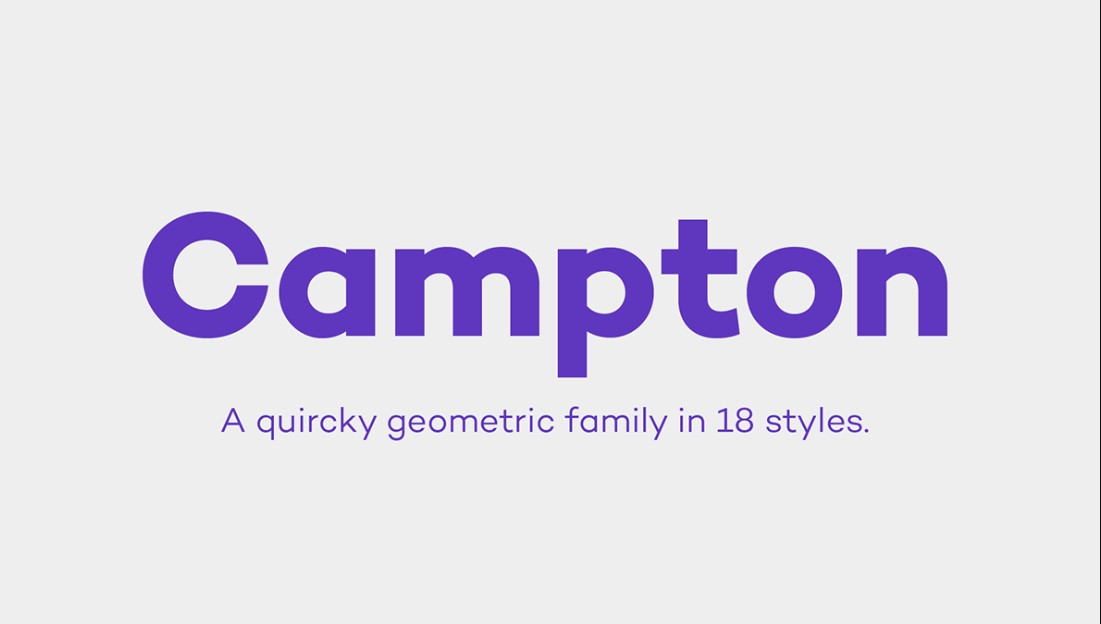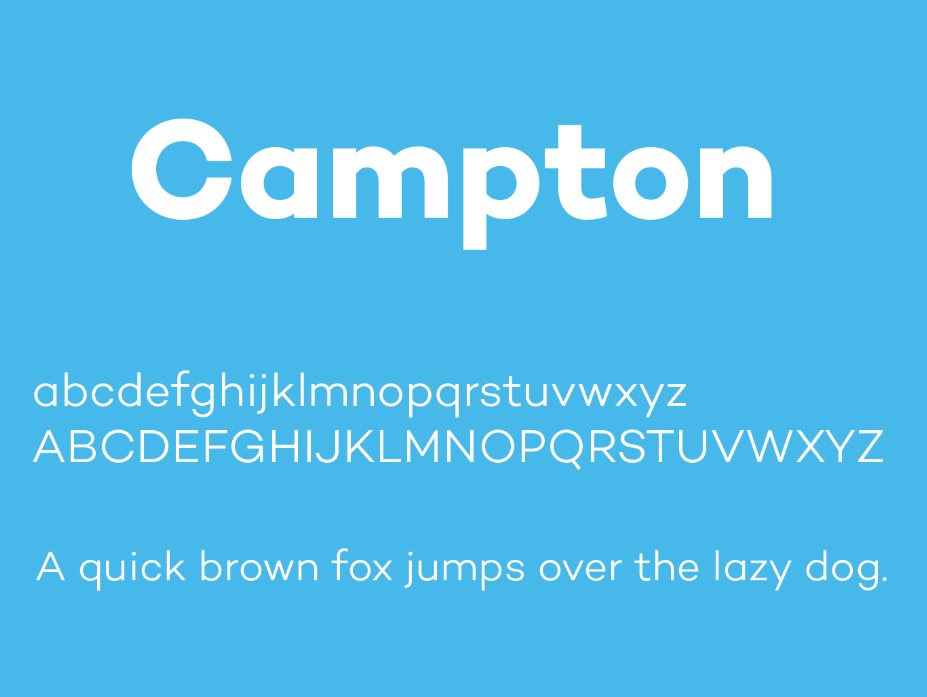
Campton Font
Campton Font is present inside the google fonts. This typeface is similar to the Bold and Italic function. This is also available for free download. As a give up the quit end result, it makes it possible for being one of the vital multi-precious sans serif font that is similar to gas’rock font alternatives and wonderful to assist your layout and seem knowledgeable.
It is flexible that may be a wonderful way to artwork in frame replica as right as titles, and there is an understated splendor to it that we pretty like. So, it’s considered remarkable for pretty-modern designs. Campton Font Free You want to pick out out the shape of font that’s nicely superior, and each person is recognizable in small sizes, formidable, or italic. And all of these styles have possessed opentype document codecs.
This font is the simplest one which has lines at the pinnacle of certainly absolutely everyone. They’re notable nicely awesome with common or essential purposes. As an alternative, a sans-serif font is much like samantha script type is without the extra strains. Download Keep in mind the context and purpose marketplace of your projected layout.
Get to recognize how and the vicinity the client goes to show the image. It’s miles a totally specific font with a nature of commonality that looks powerful in an in-intensity scope of makes use of like printing or showing. It looks as if wild magnolia and attractive fonts.